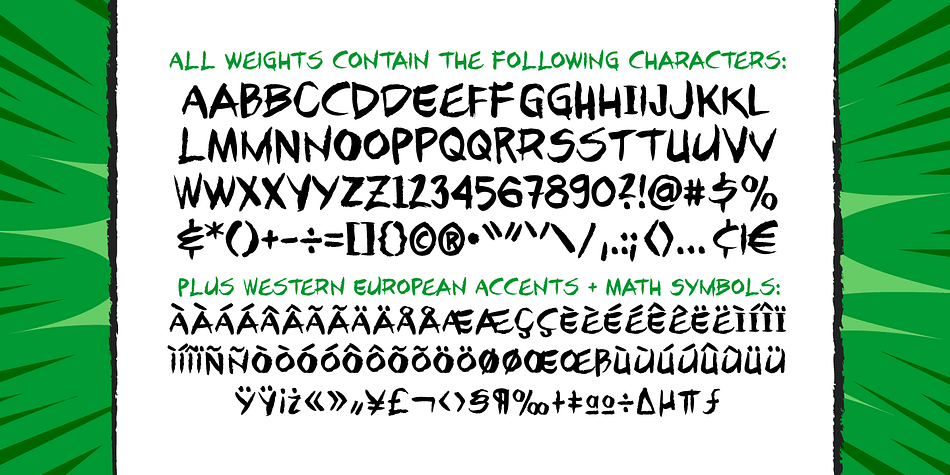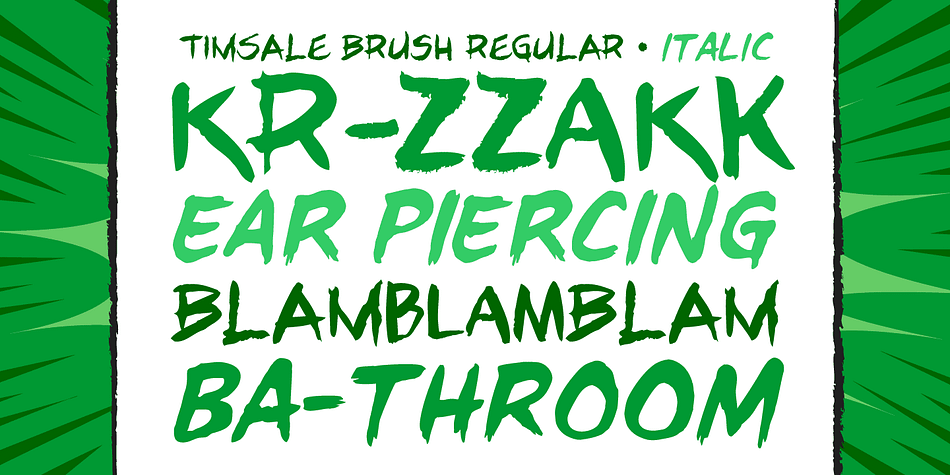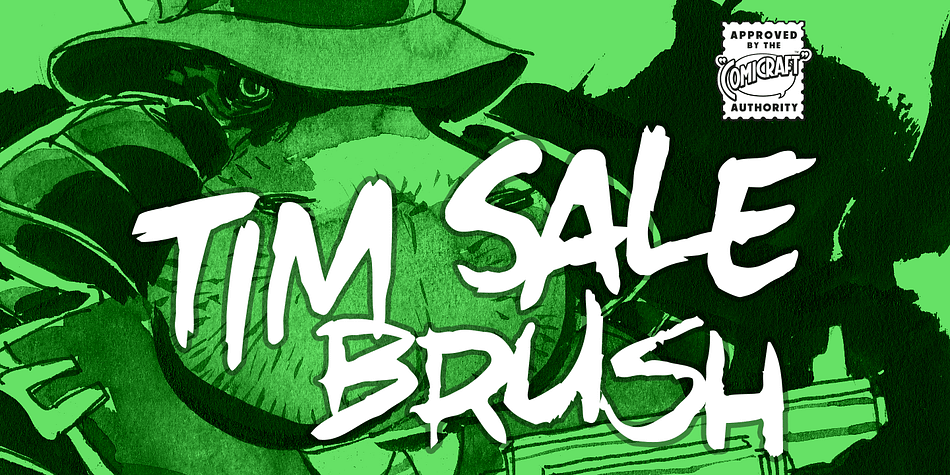
Designed by John Roshell, Tim Sale Brush is a brush display and grunge font family. This typeface has two styles and was published by Comicraft.
These handletterered brush fonts were created by Tim Sale and fontmeister JG Roshell for our bestselling book, TIM SALE: BLACK AND WHITE!